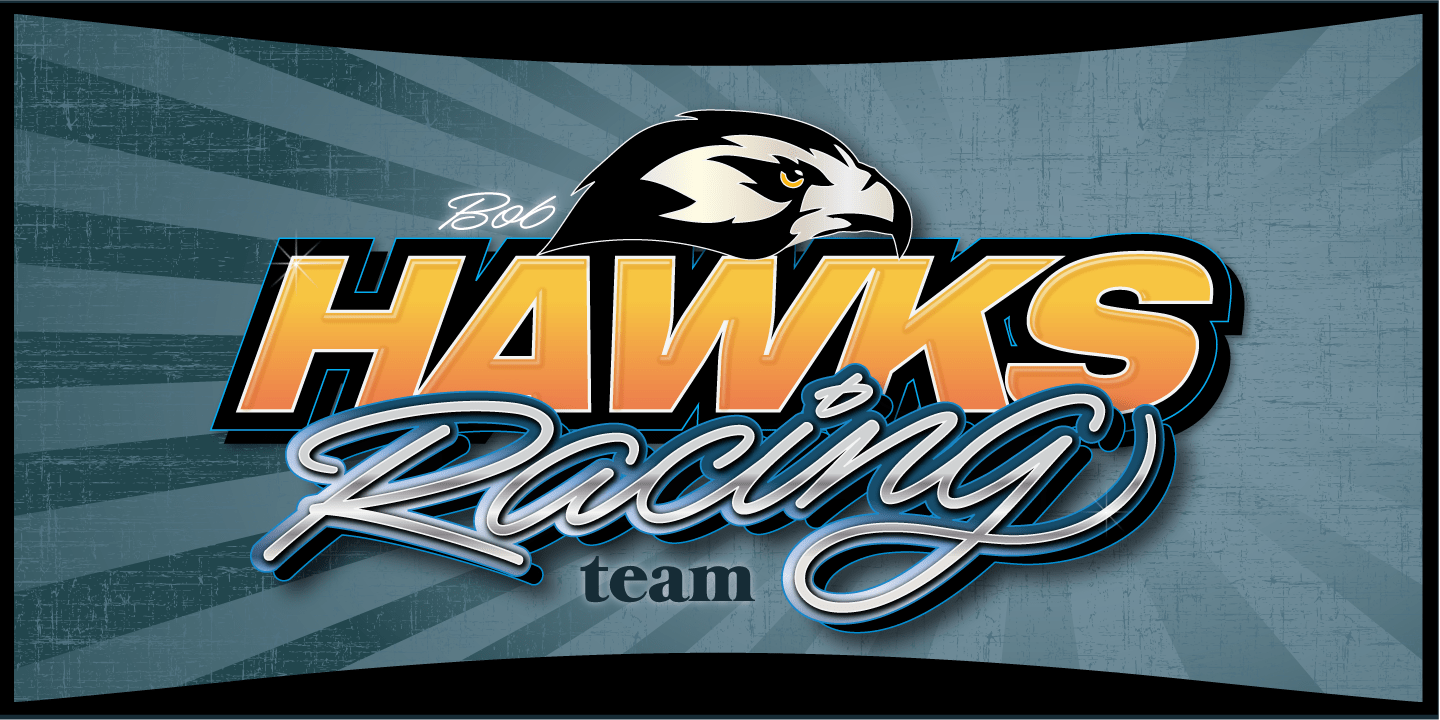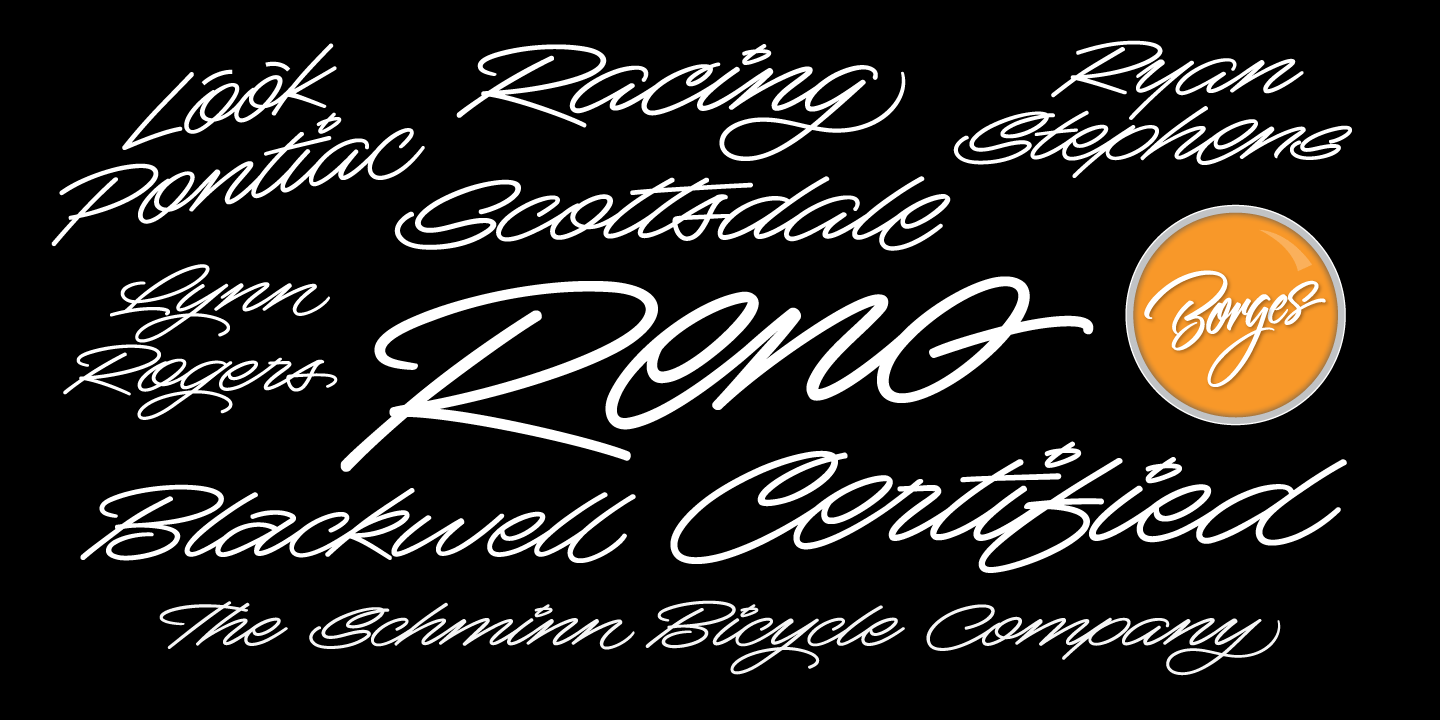
Mocha Script
Buy NowCreated by veteran Sign Painter, Bruce Bowers and Lettering Artist, Charles Borges de Oliveira. Mocha Script boasts over 243 characters which includes alternates, ligatures and special end characters which allows Designers to create a magnitude of variations of letters to produce unique hand lettered words. Enjoy!